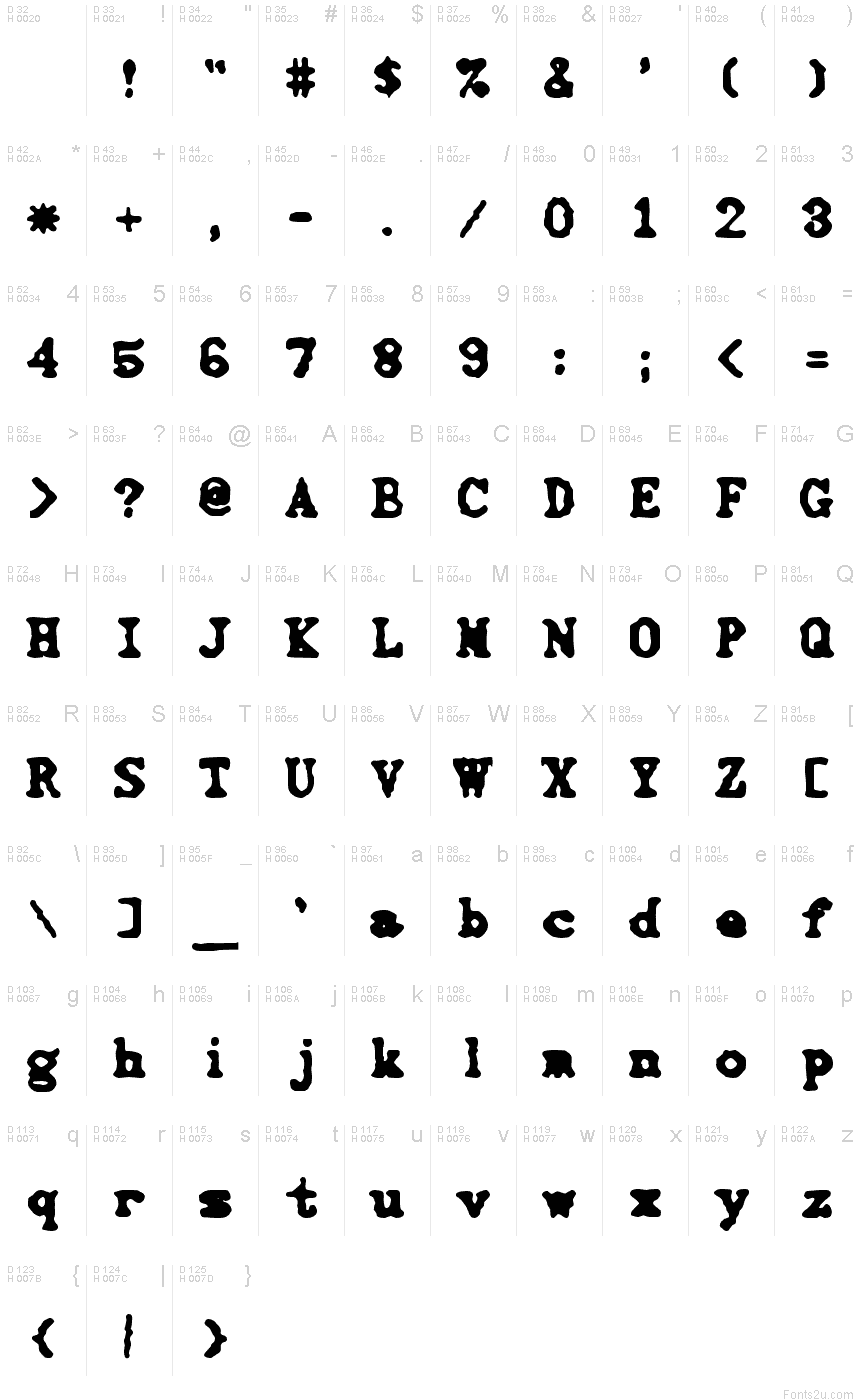
3000
3000 is a striking display font designed by Phantasmic Design. Its distorted, bold aesthetic immediately grabs attention, evoking a sense of energy and drama. The unconventional letterforms, with their sharp angles and organic, almost liquid-like curves, lend the font a unique and memorable personality. This font shines in bold, attention-grabbing applications such as headlines, logos, and branding materials.
Its bold presence and visual impact make it a versatile choice for creating a bold, impactful statement in various design projects.
Designed 1996 by Michael Spina of phantasmic design